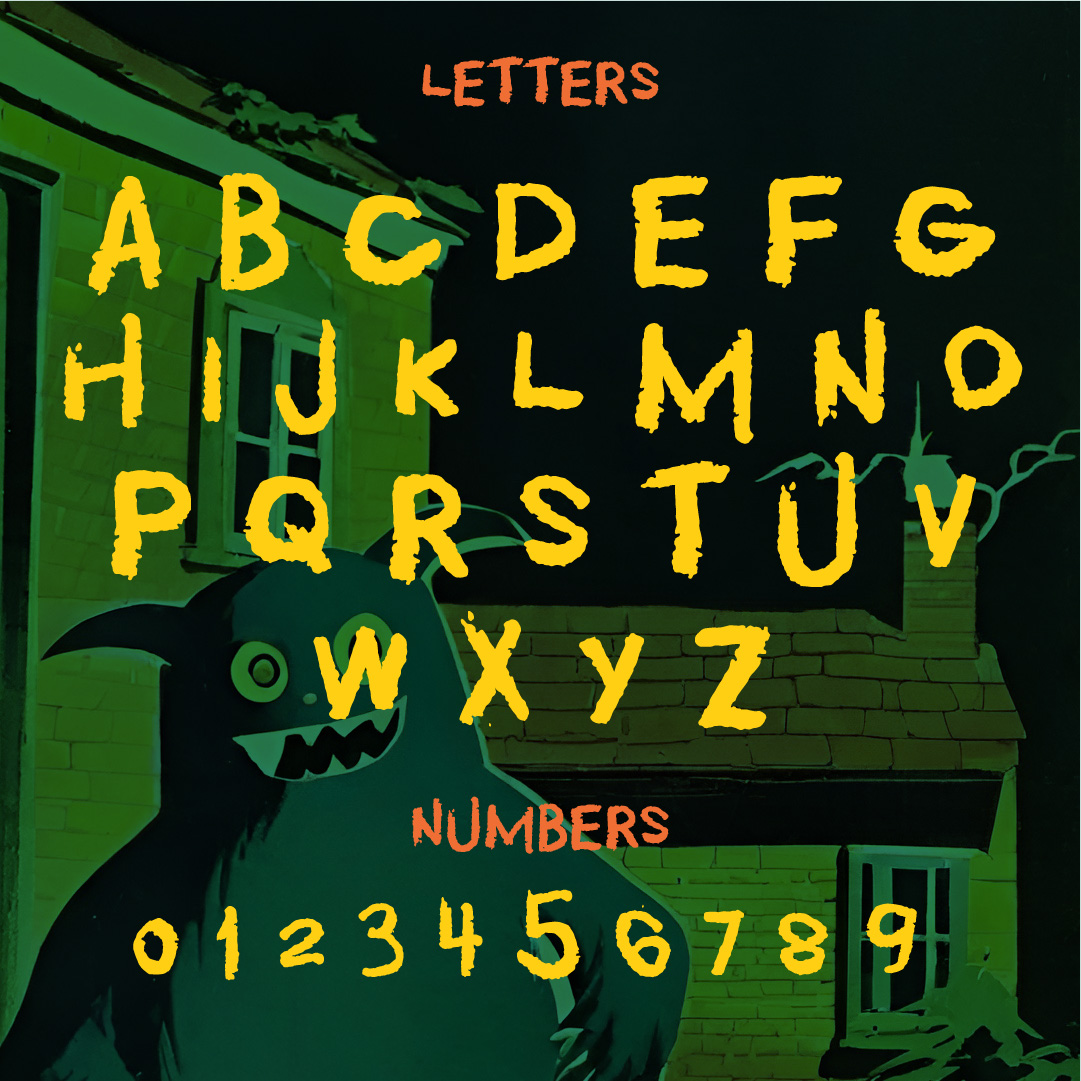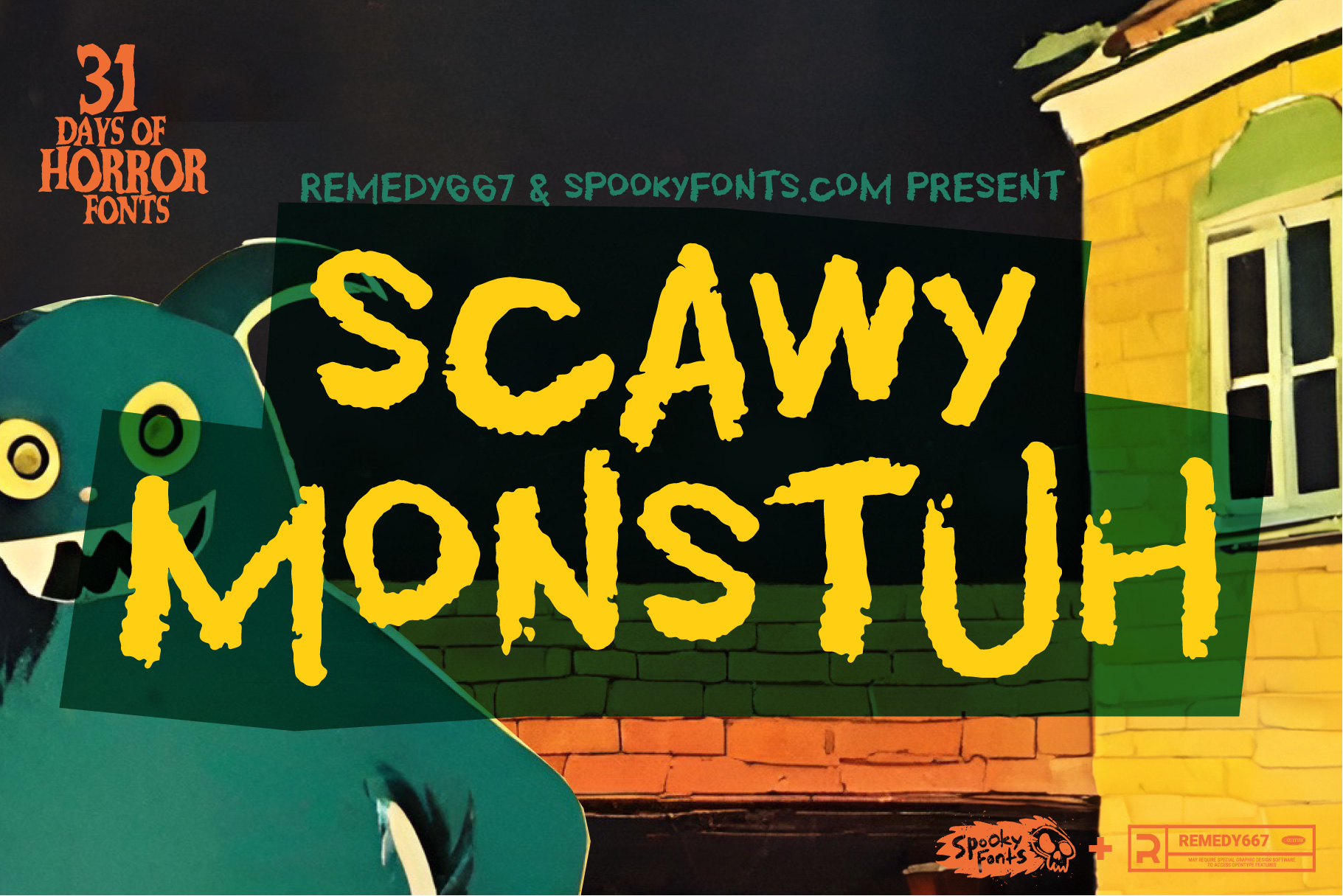
Scawy Monstuh
A delightfully spooky font inspired by the lettering of children.
Introducing Scawy Monstuh, the frightfully delightful crayon scrawled spooky typeface that will send shivers down your spine! With its ghastly strokes and chilling curves, this bone-chilling font will bring a touch of macabre to all your design projects. Let the eerie charm of Scawy Monstuh enchant your audience with its haunted serifs and spectral descenders.
Unleash the power of darkness as you conjure up terrifying Halloween invitations, blood-curdling posters, or spine-tingling social media graphics. Each letter is meticulously crafted to exude an otherworldly atmosphere that is sure to captivate the darkest depths of any beholder’s soul. The jagged edges and uneven lines mimic ancient rune carvings found in forbidden crypts, ensuring that every word typed becomes a menacing whisper from beyond.
Scawy Monstuh isn’t just for ghoulish designs; it’s also an excellent tool for horror-themed branding or creating eerie book covers that beckon readers into realms unknown. Whether you’re a graphic designer seeking to evoke fear or a diabolical writer looking for inspiration, this petrifying typeface will be your new best friend in the graveyard. Dare to embrace the haunting